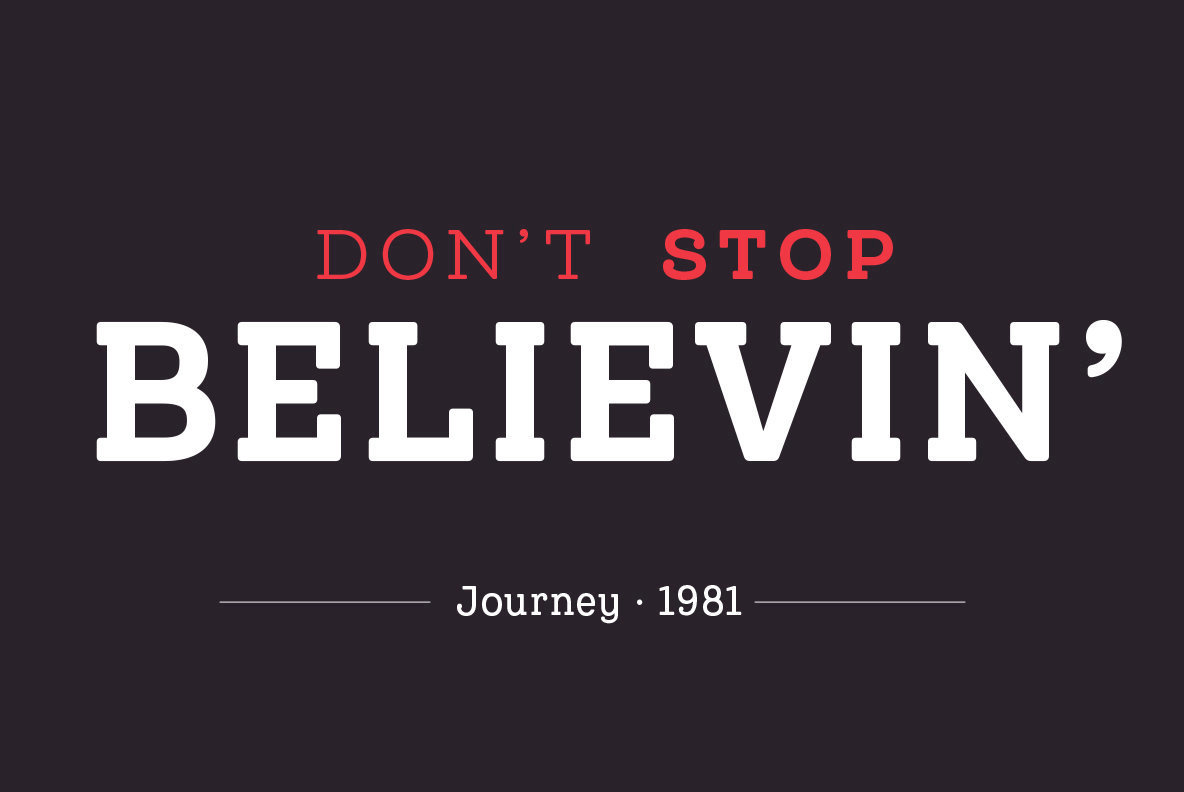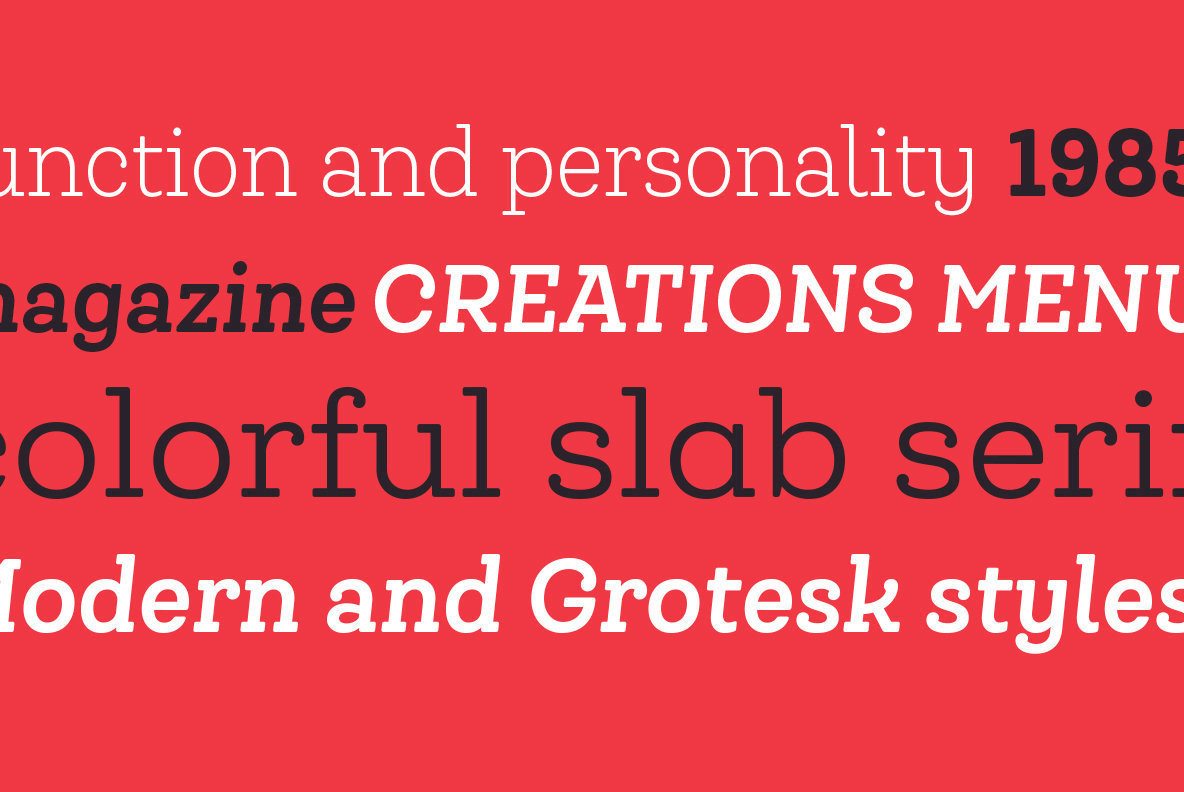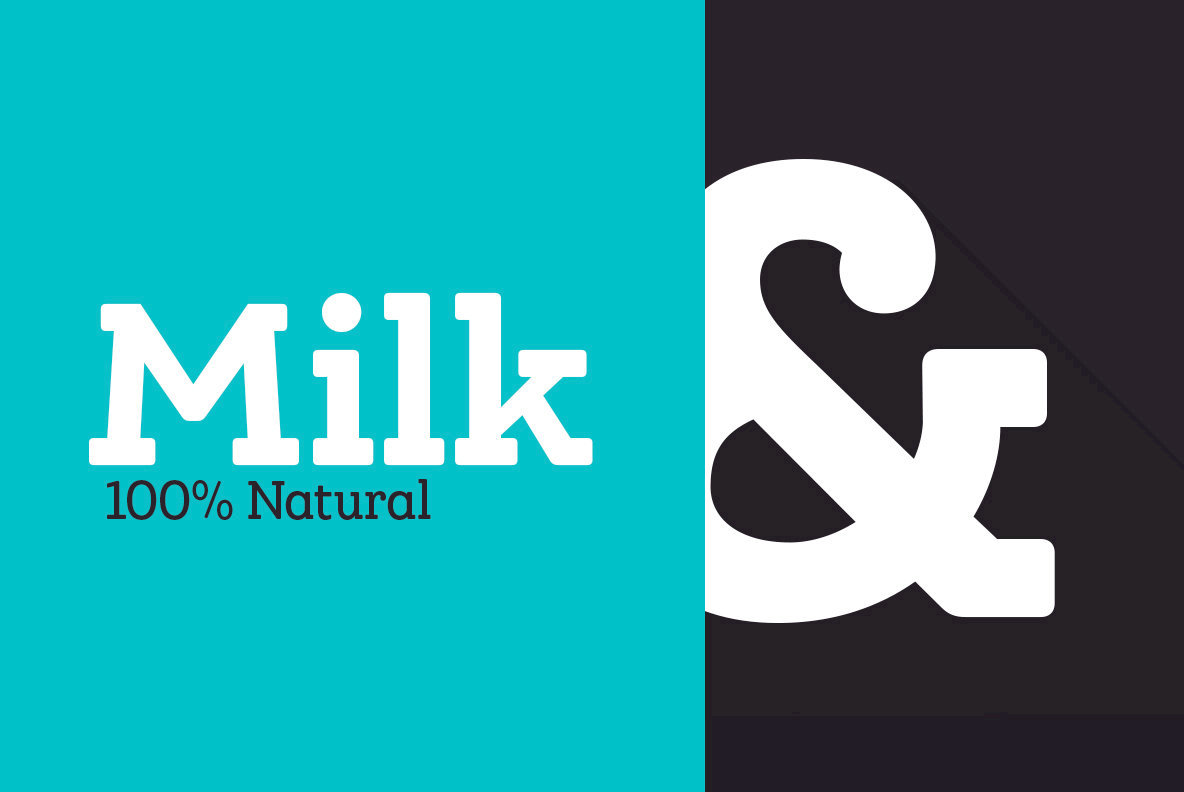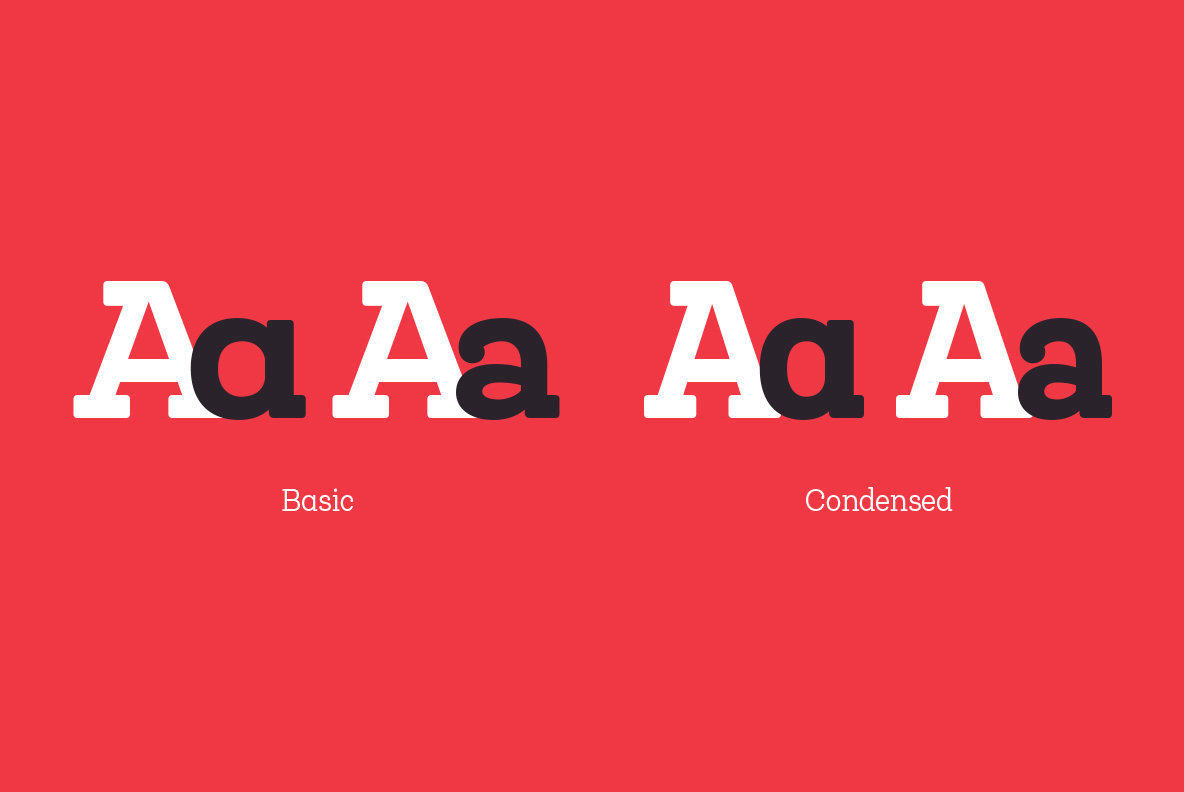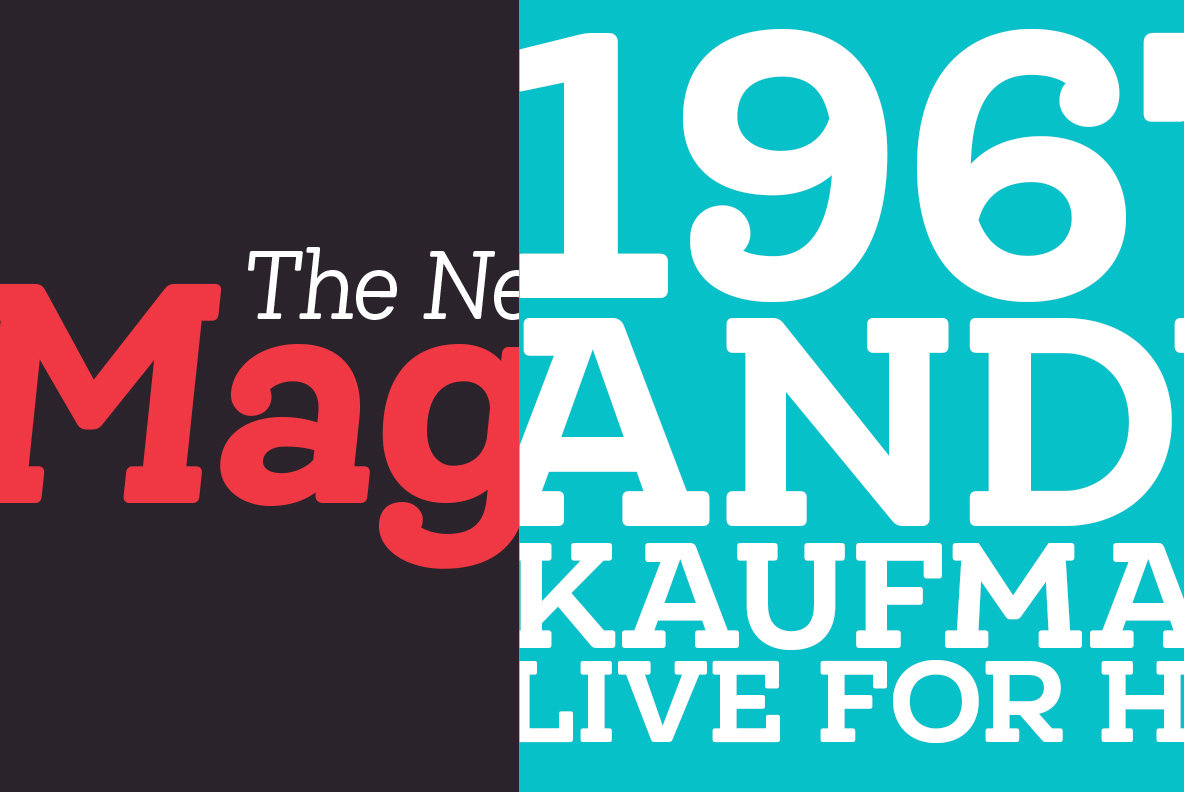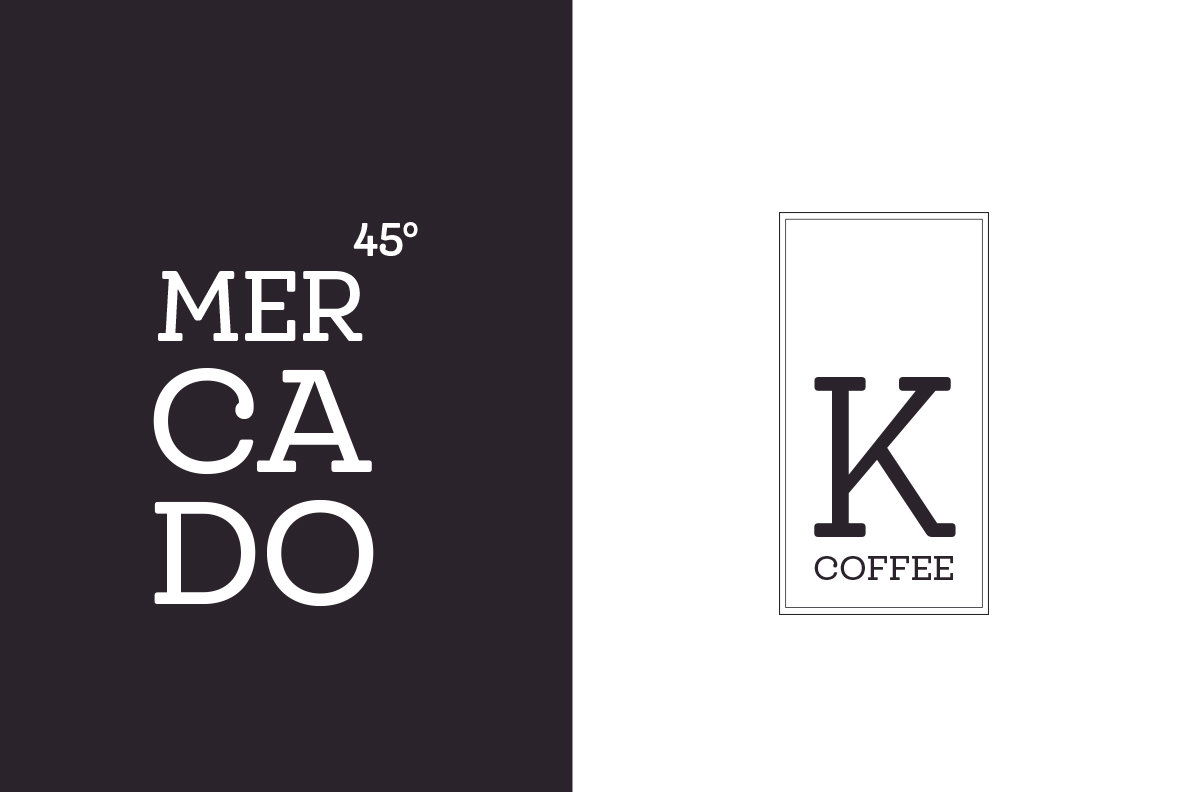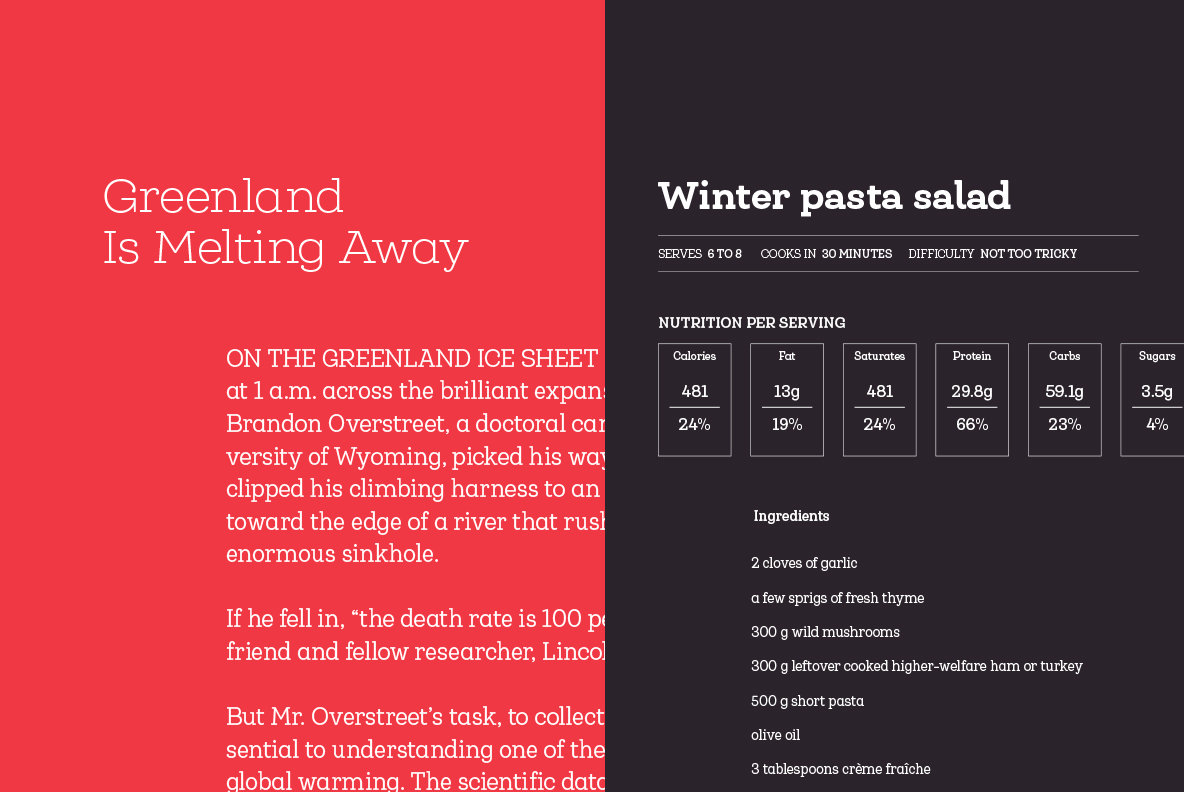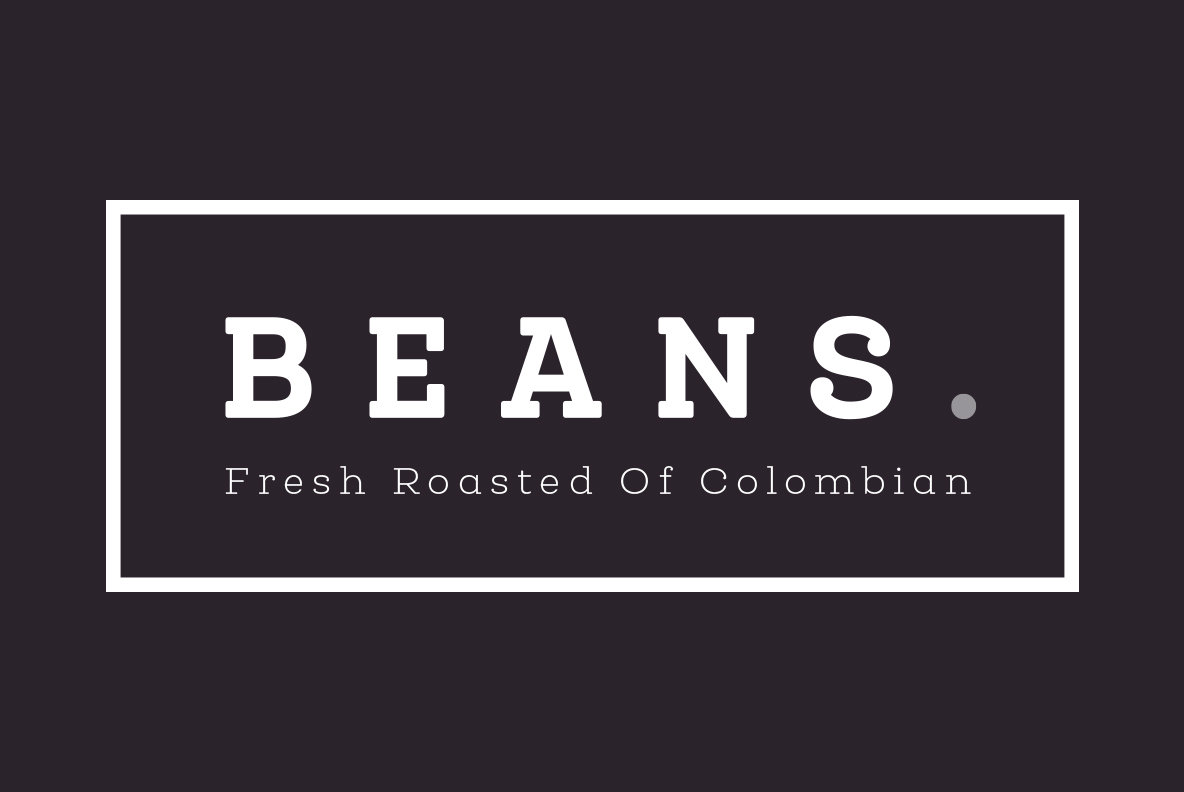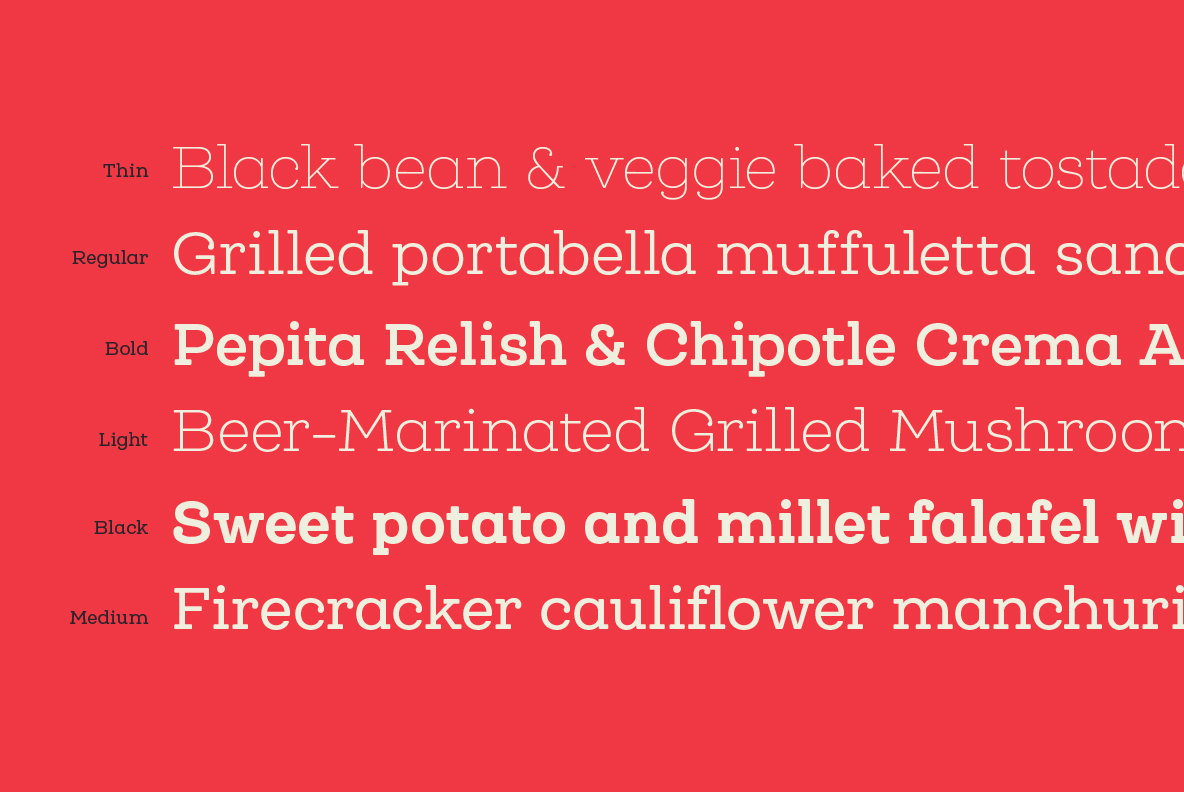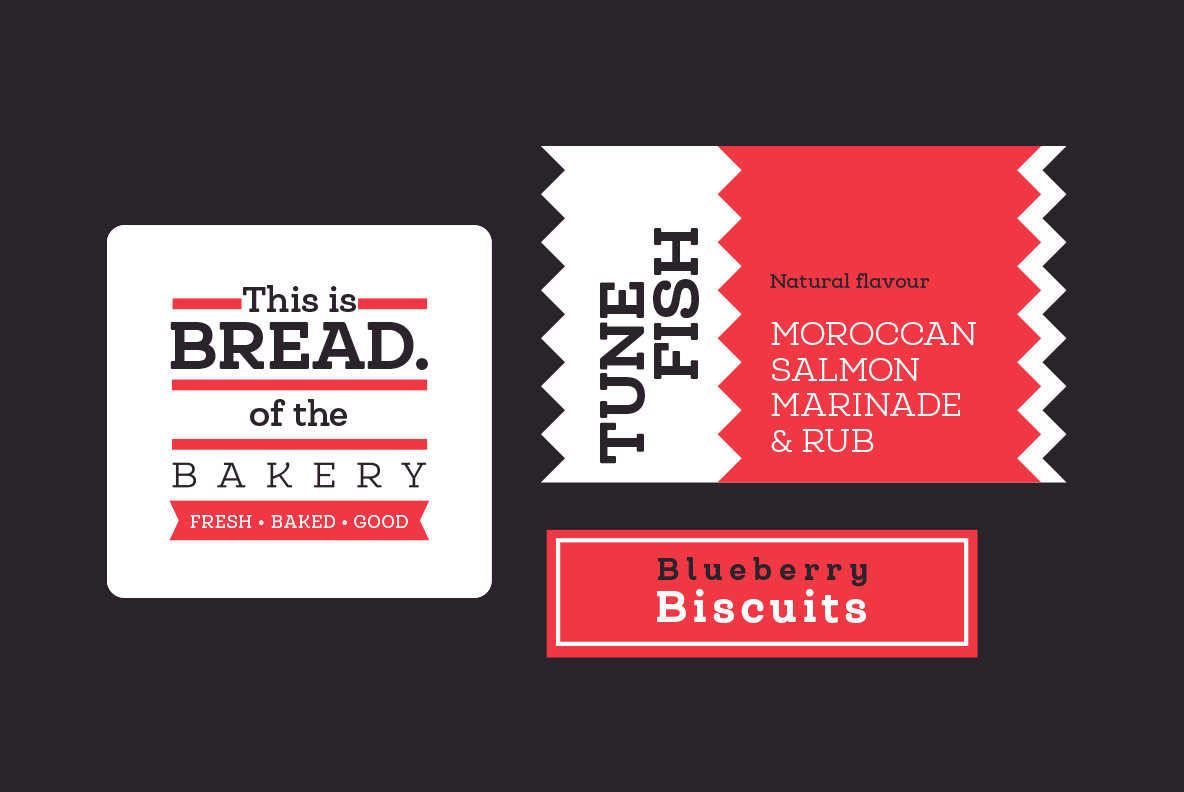
Queulat Soft Font
The combination of styles can be clearly seen by comparing the Regular with the Alt version. The Regular version is more simple than the Alt one. Differently, the alternative version possesses more features of the Modern style, like teardrop terminals in ‘k’ and ‘v’.